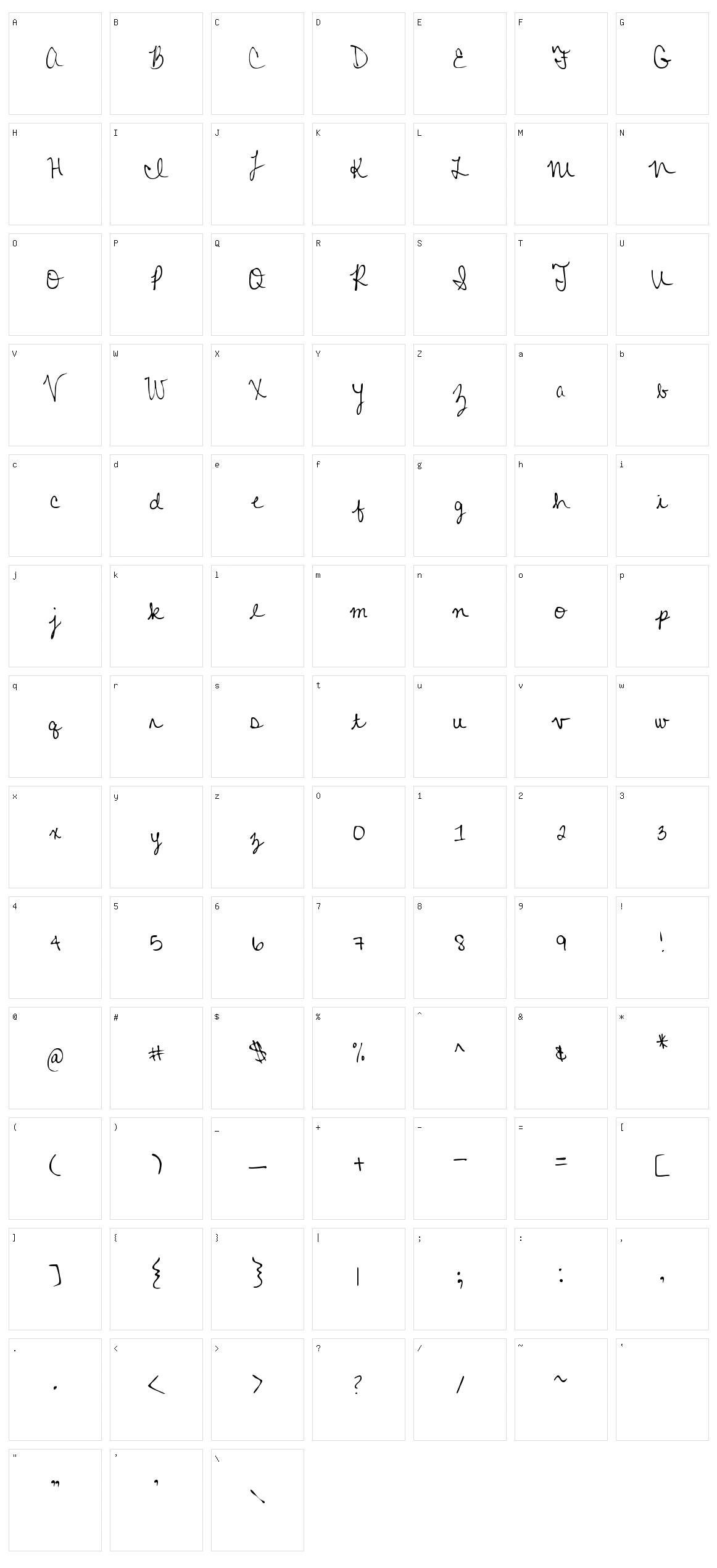
The free font MTF Colleen Cursive is carefully designed by Miss Tiina Fonts - MTF, showcasing a thoughtful balance of creativity and usability and falls under the Script font style. When you download the ZIP file, it contains only 96.07 KB of font files, making it lightweight and quick to download. Please review the license details below to understand permitted usage and distribution rights. If license information is not available, we recommend using this font for personal projects only or contacting the author directly for commercial usage permissions.